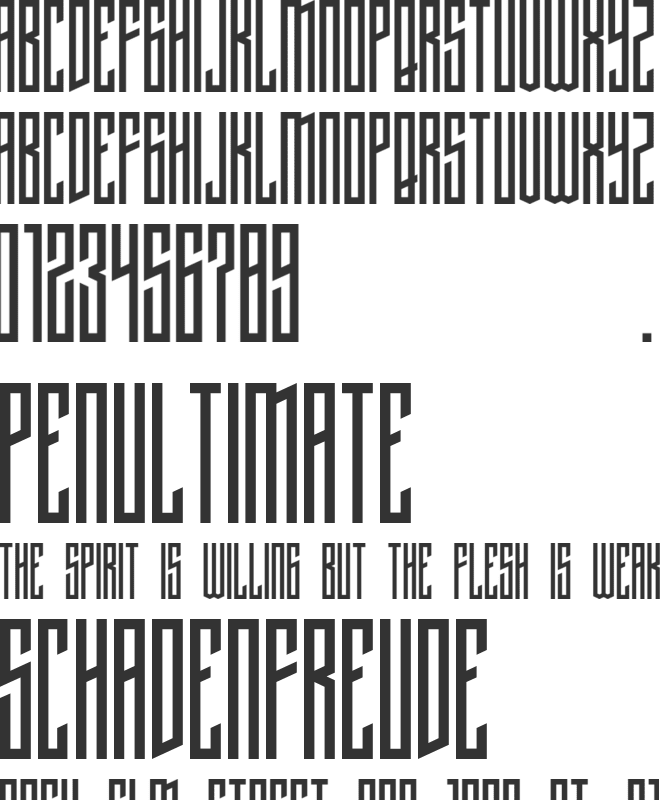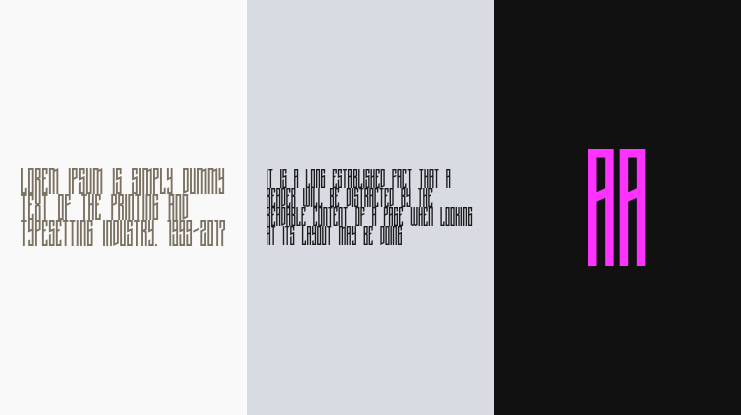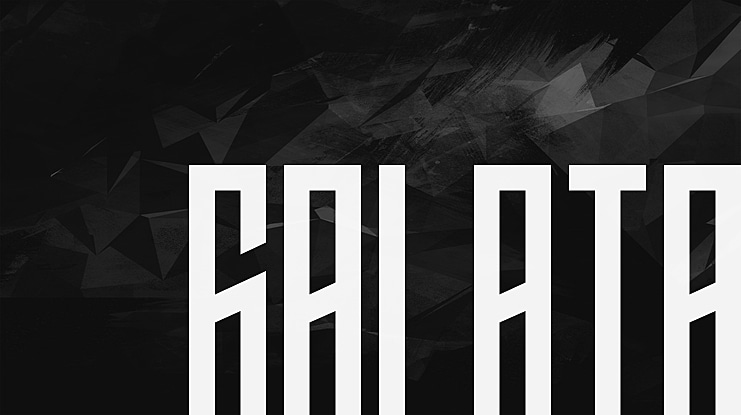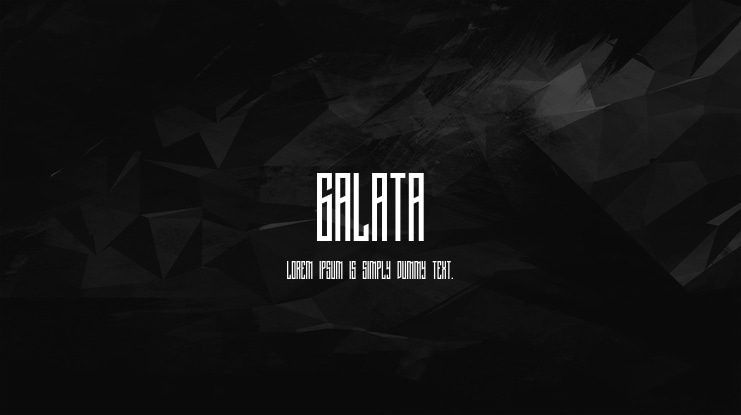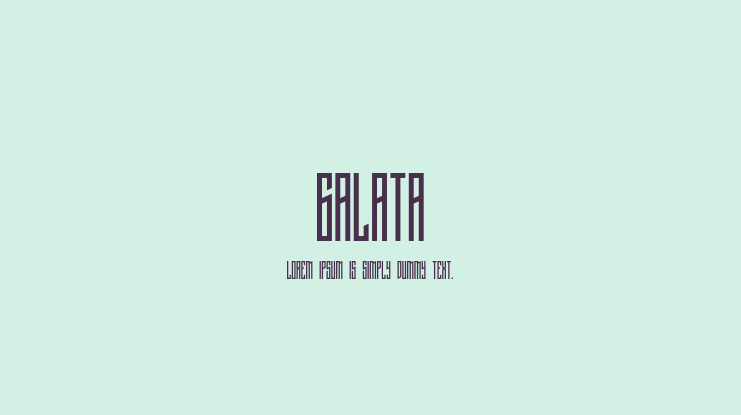
Galata Font Family
Mehmet Baytur
This font is made with attention to the beauty of the harmonious letterforms and the height of the ascender is made higher and the width of each letter is made in a condensed style making this font look authentic and has the characteristics of deep beauty, this font is a Display category font which is suitable for use in designs such as billboards, logos, posters, and others.